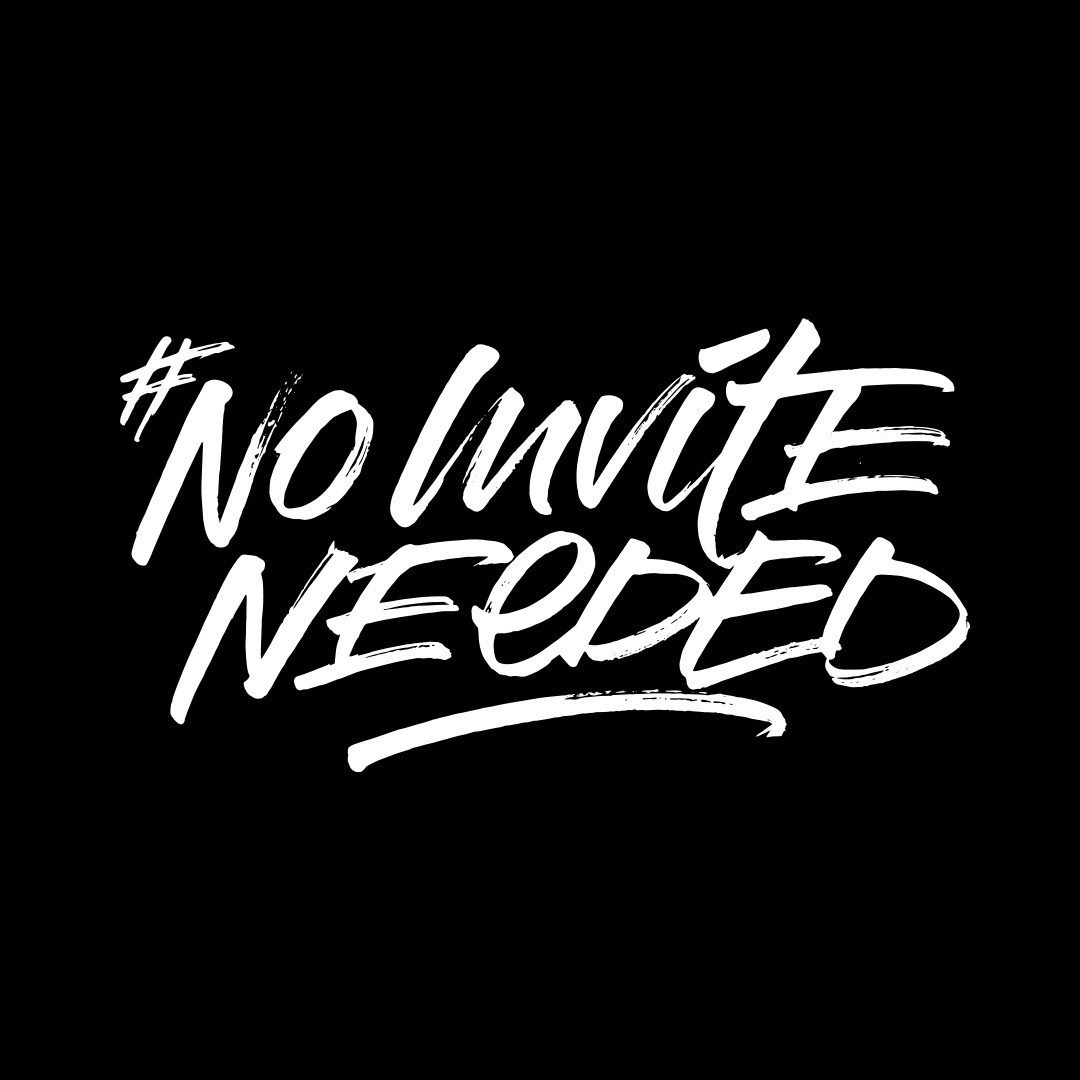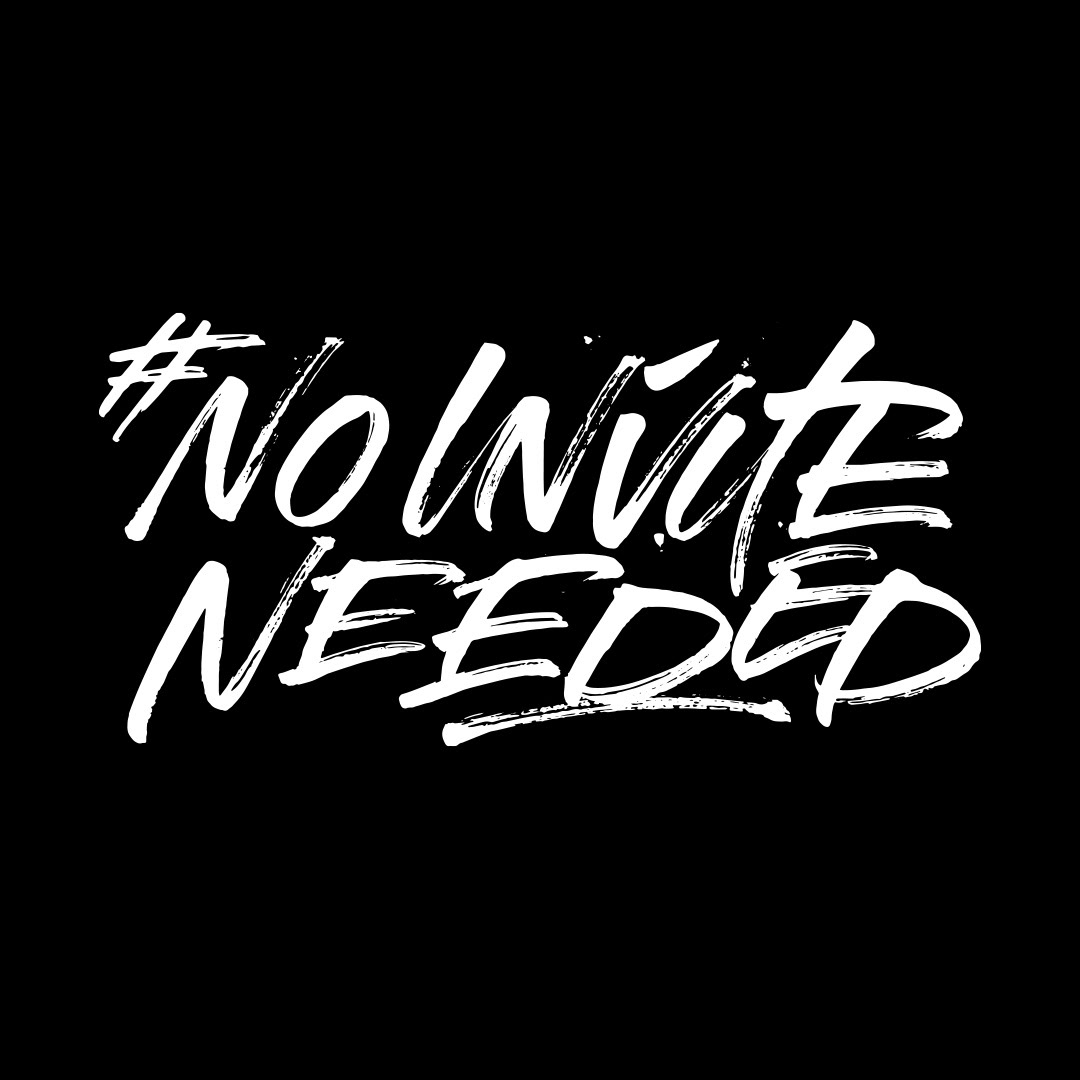
I was asked to do a hashtag logo to be used on a campaign to promote women's football for the FA. It had to express how much the game has changed; women no longer need to ask for permission to be on the field – we're there, unapologetically claiming a space. With this in mind the type had to show grit, energy and determination. This scratchy, textured and energetic lettering expressed the essence of that message. [Pitch concept].